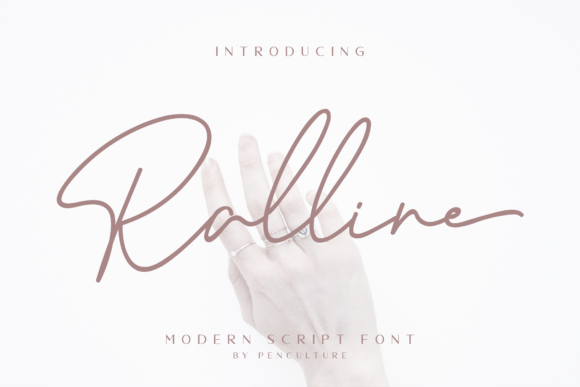
Ralline Font
Journey into the realm of Ralline Font, a script masterpiece designed to ignite your creative spirit. With its distinctive charm, this handwritten font exudes elegance and sophistication, ready to transform your digital expressions into works of art.
Immerse yourself in the world of Ralline Font, where imagination knows no bounds. This script font captivates with its smooth curves, delicate loops, and graceful strokes, adding a touch of elegance to every letter, word, and phrase. Whether you're a blogger, designer, crafter, or simply seeking a font that speaks to your unique style, Ralline Font is your perfect companion.
Indulge in endless creative possibilities as you explore the diverse applications of Ralline Font. Whether it's crafting captivating fashion blog posts, designing eye-catching social media graphics, creating personalized invitations, or adding a touch of personal flair to your DIY projects, Ralline Font is the ultimate tool for expression.
Embrace the beauty of Ralline Font and let your creativity soar. Experience the joy of creating with a font that captures the essence of your personal style, allowing your words and designs to shine with newfound confidence and grace.
Don't settle for ordinary when you can have extraordinary. Embrace the power of Ralline Font today and embark on a journey of unparalleled creativity and self-expression.